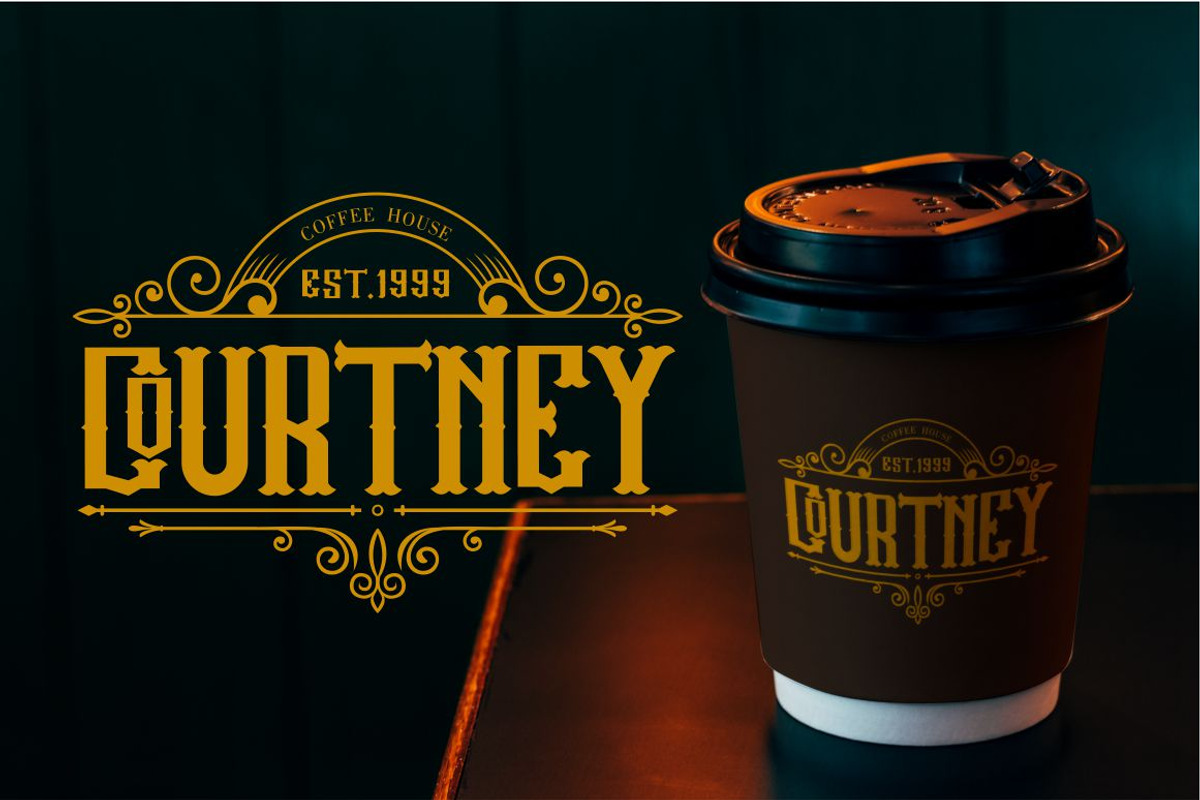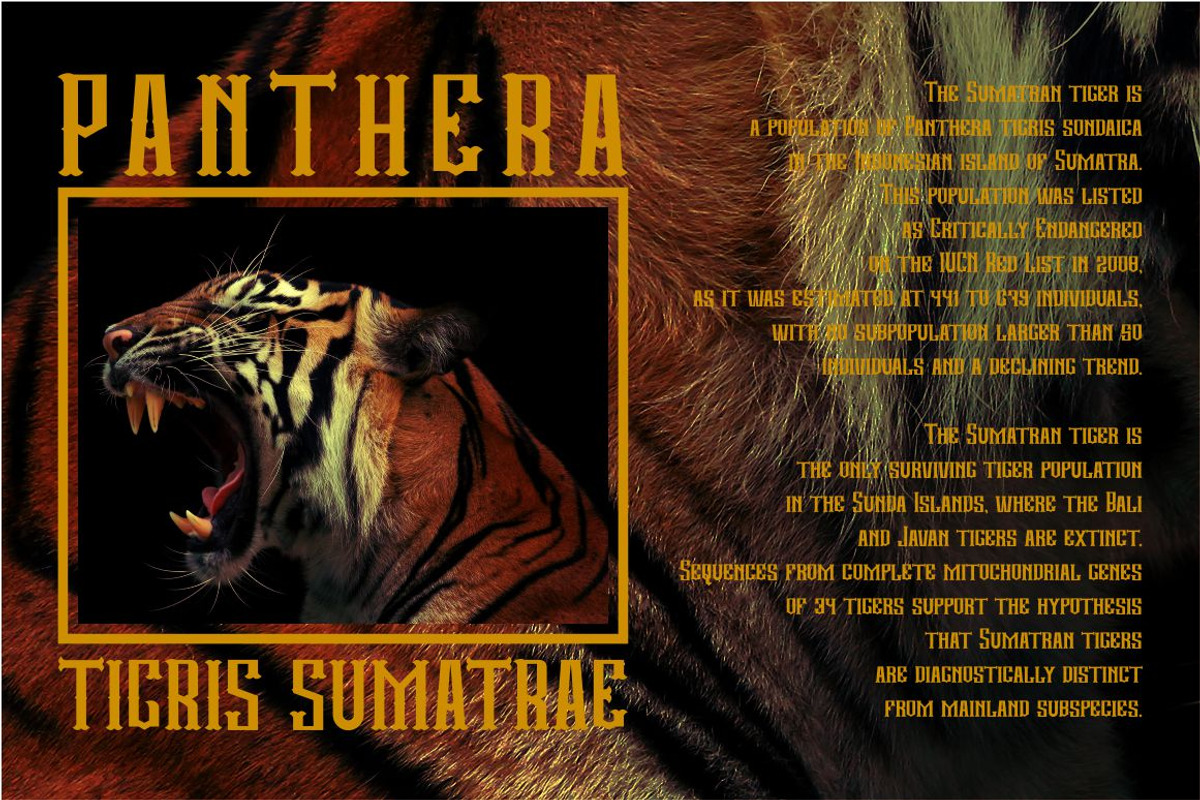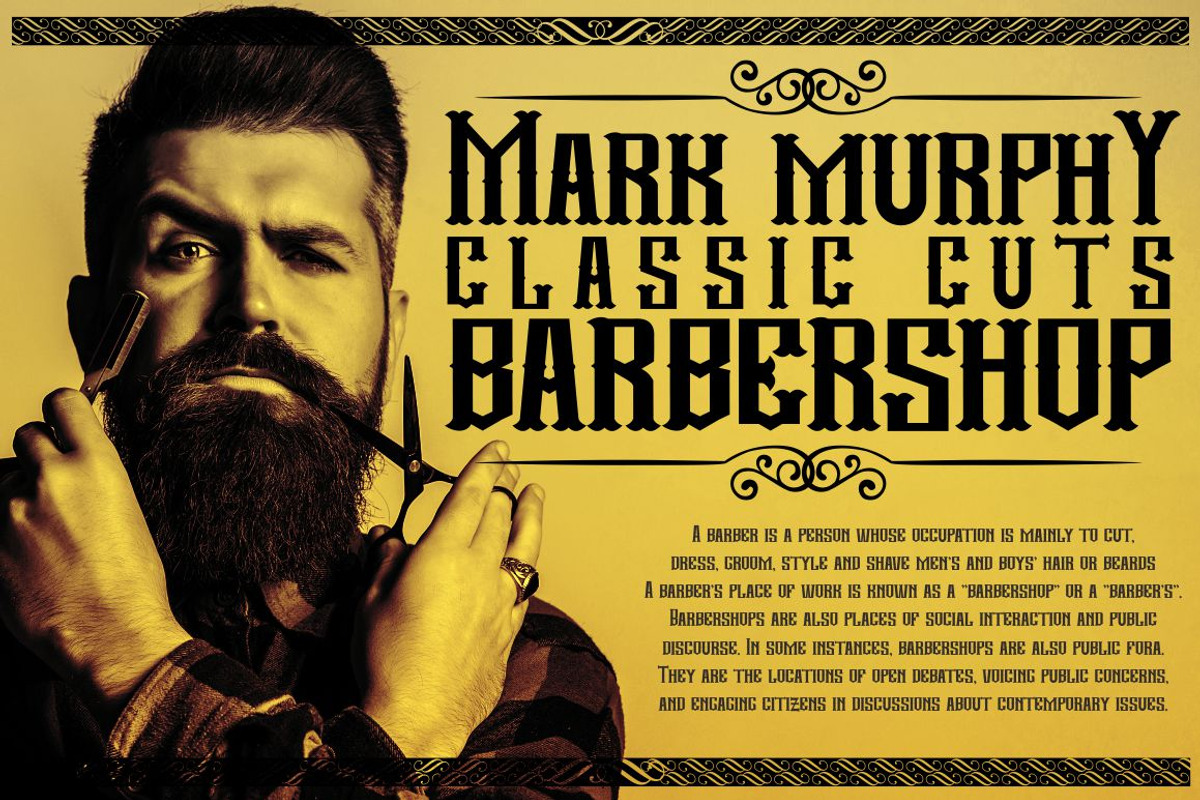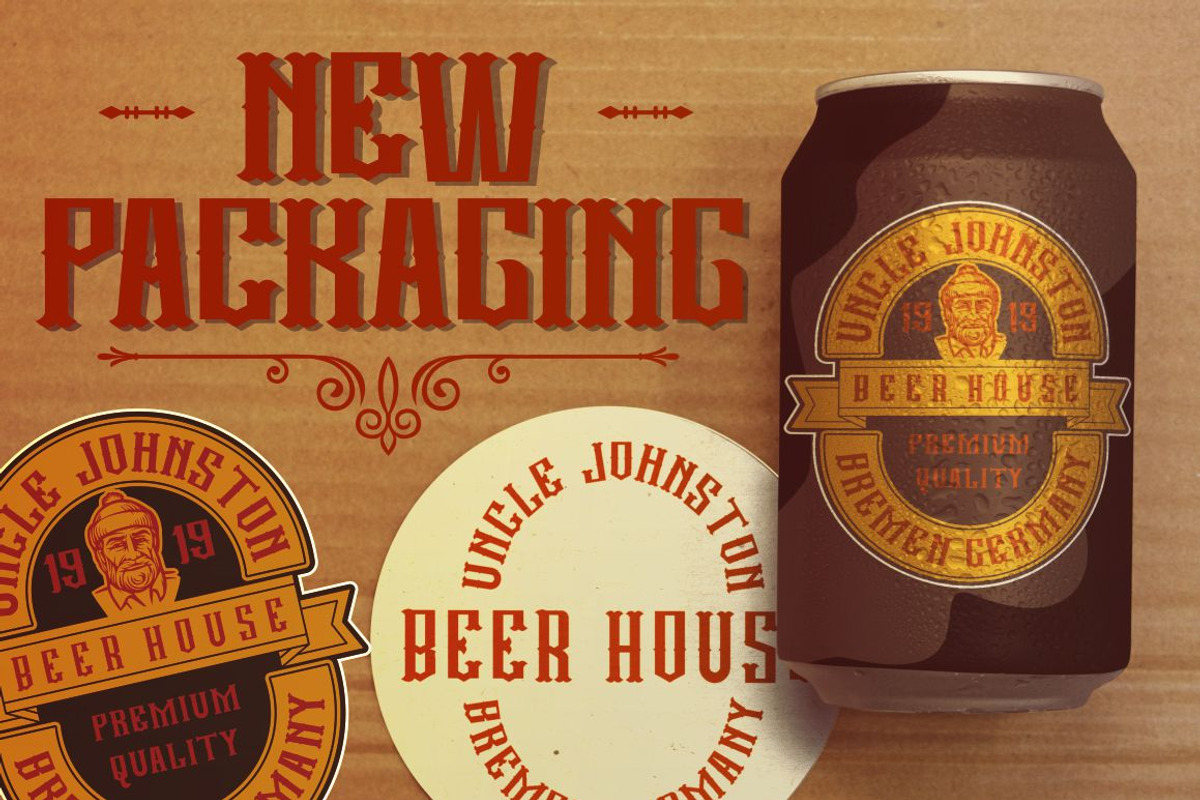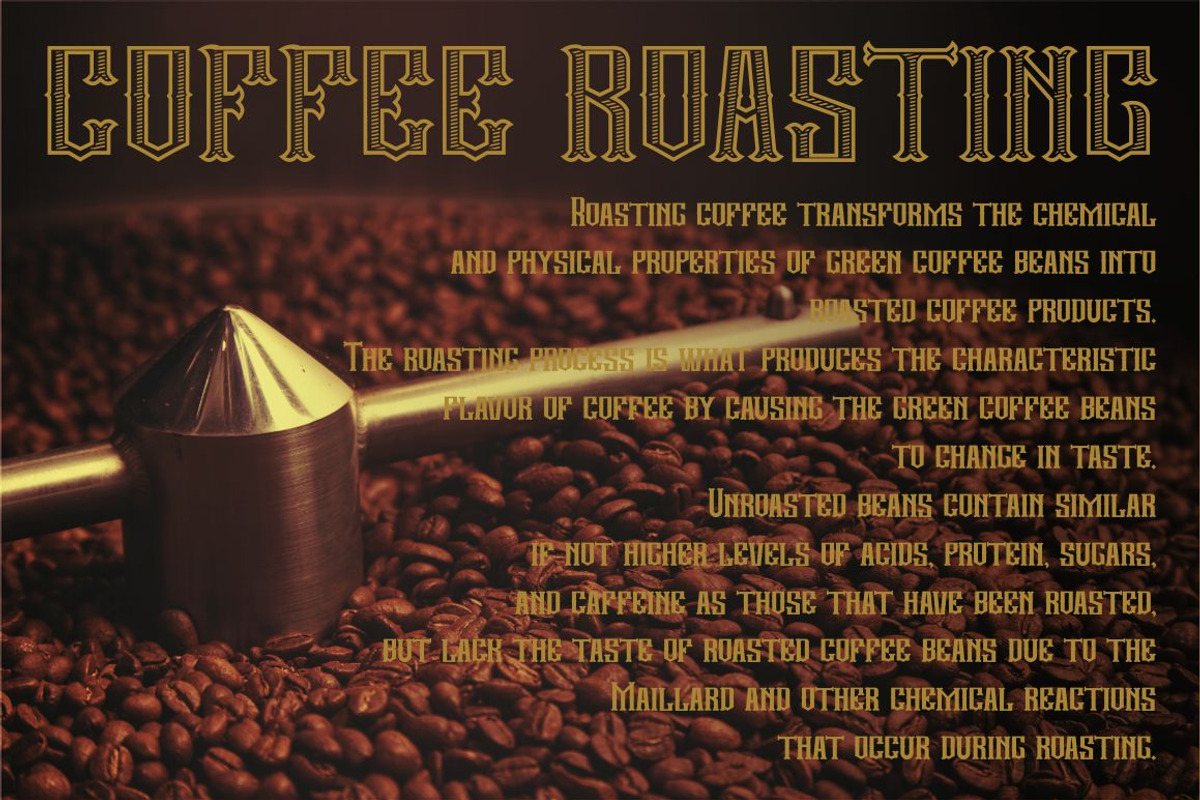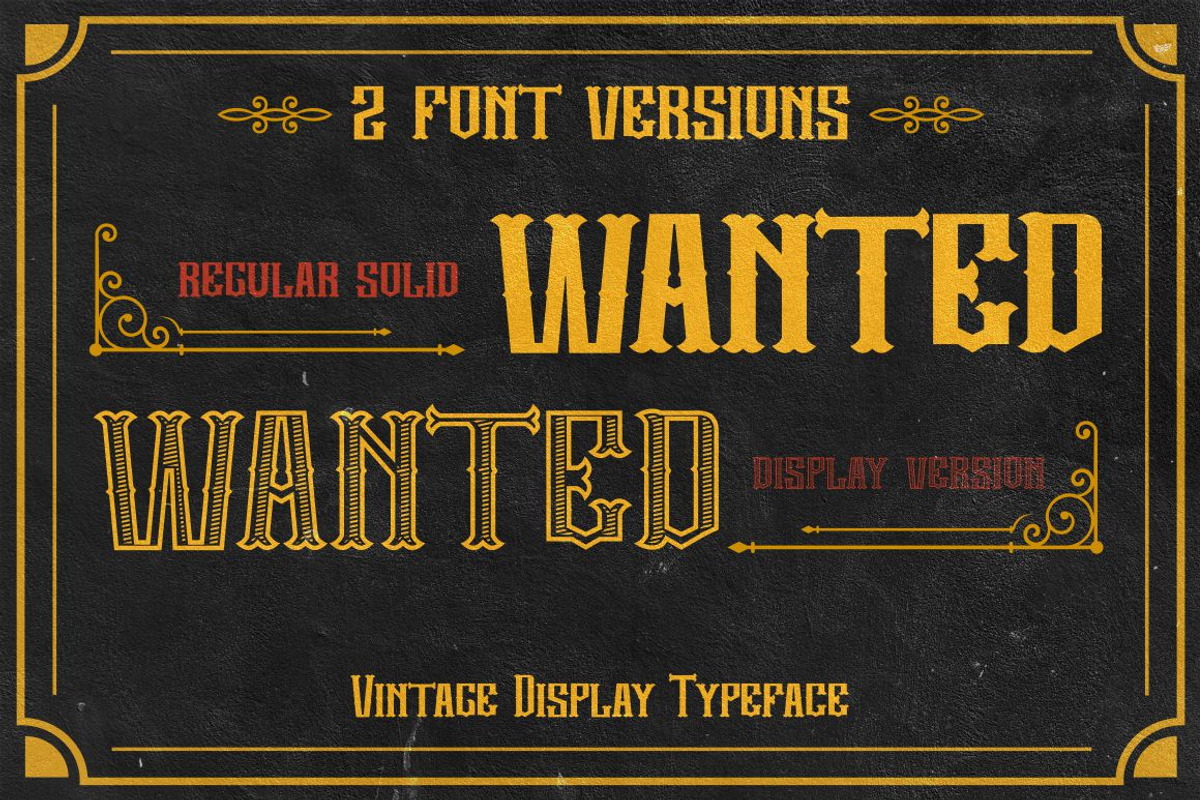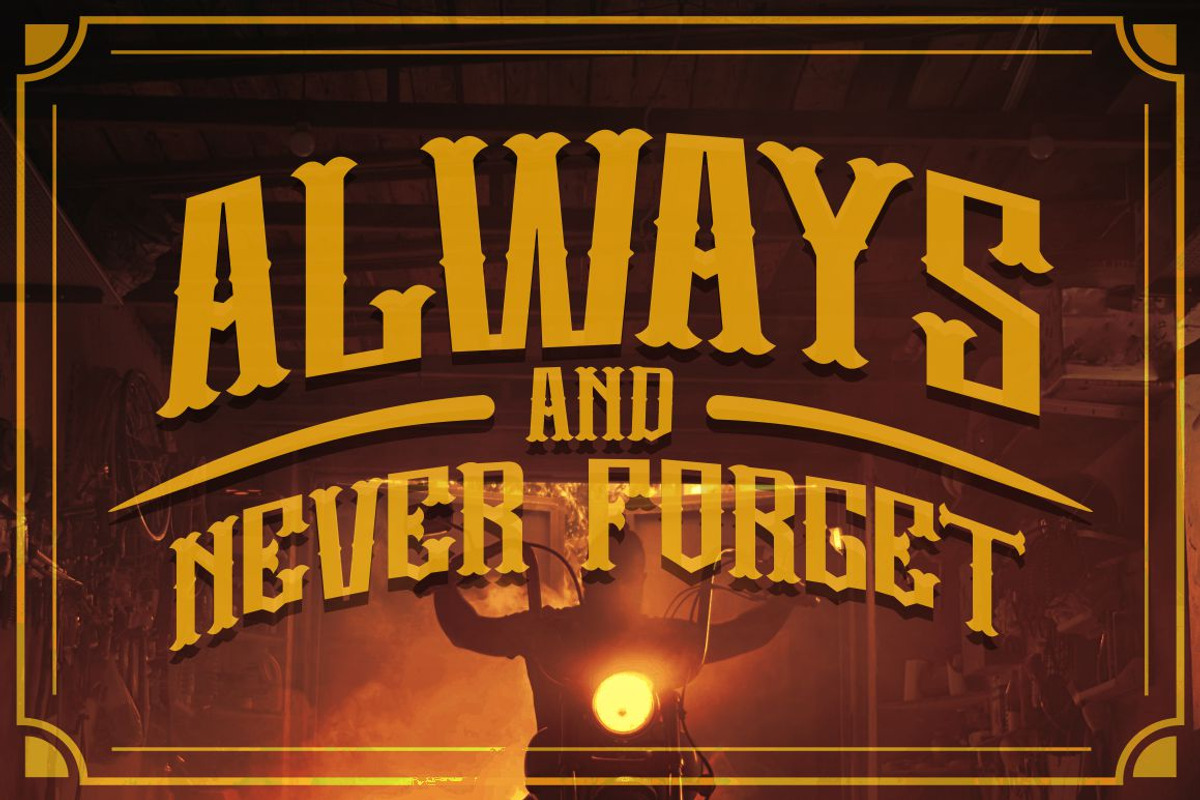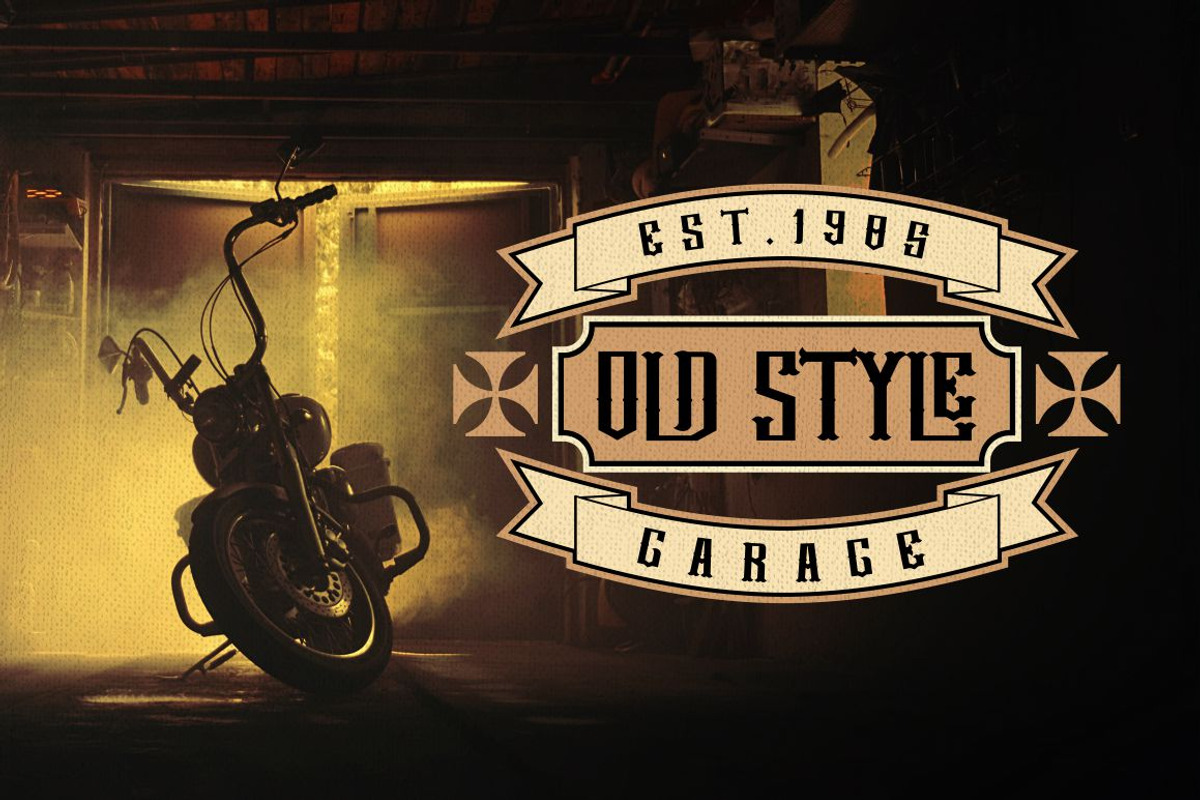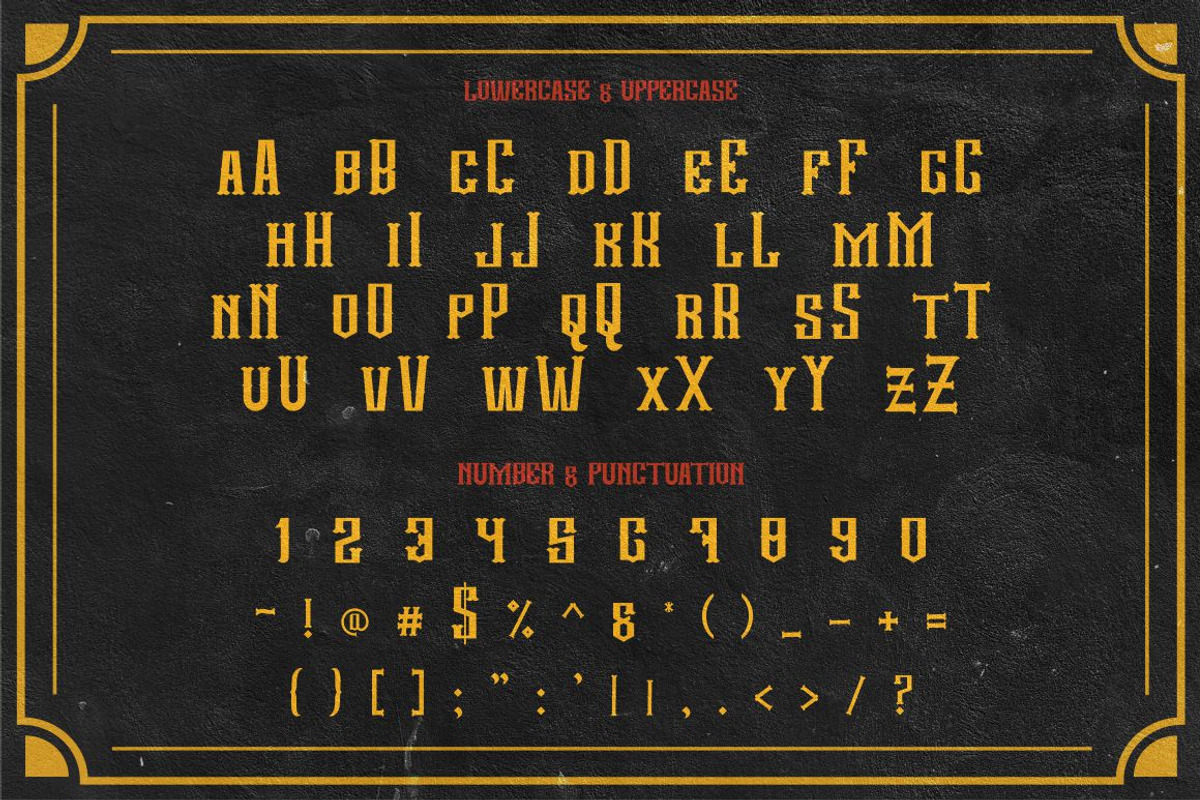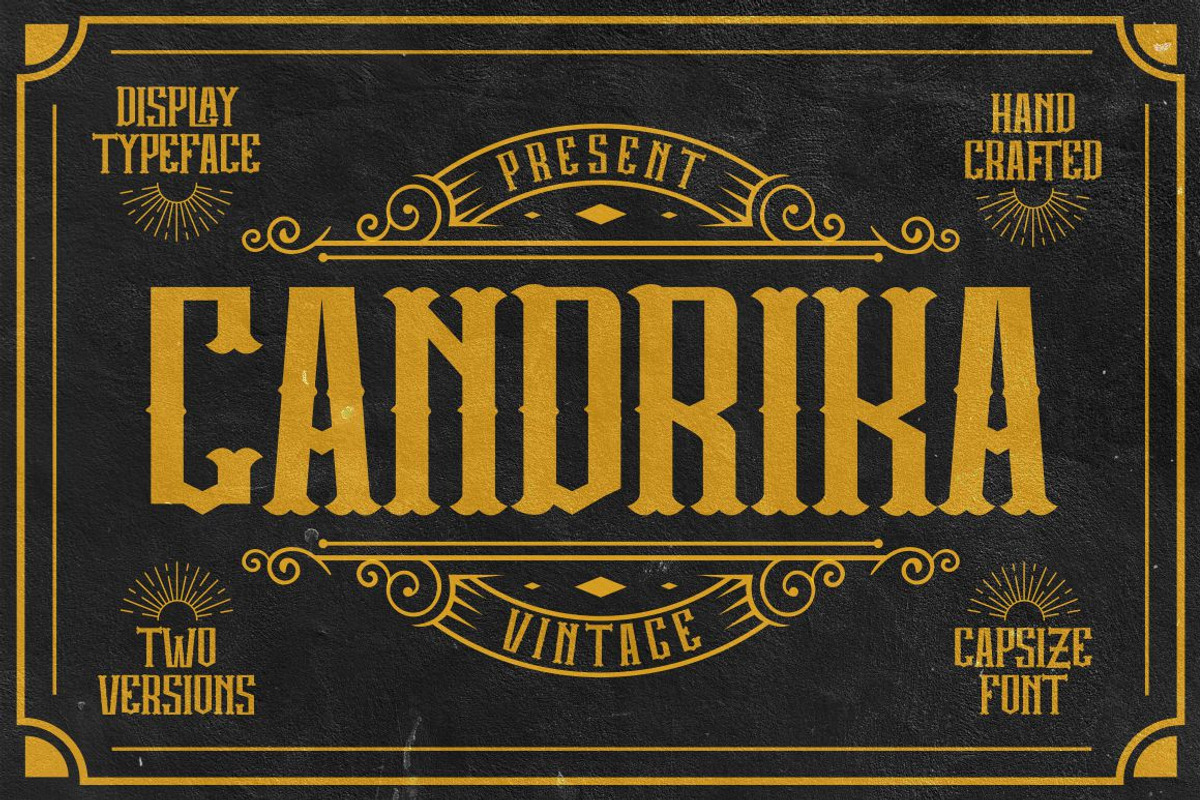
Candrika - Vintage Label Typeface
Candrika
Candrika is a classic label display typeface. Come up with solid and decorative style. This font inspired by the vintage package label and old signboards. The style of this font is strong, classic and dynamic. So that makes this font good for normal text sizes or large headline text sizes. Candrika is also great for any kind of display purpose from logos, label, tshirt, apparel, barbershops, tattoo, packaging, poster, signage, greeting card and logotype. This font is also support multi language.
Comes with feature :
- Number, Punctuation And Symbols
- Multilanguage Support.